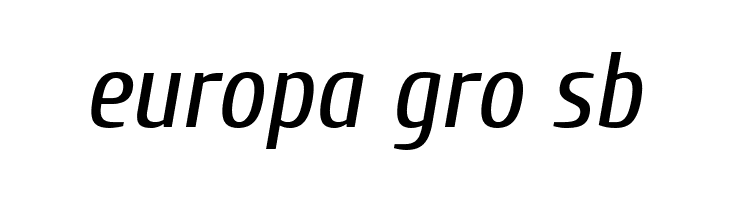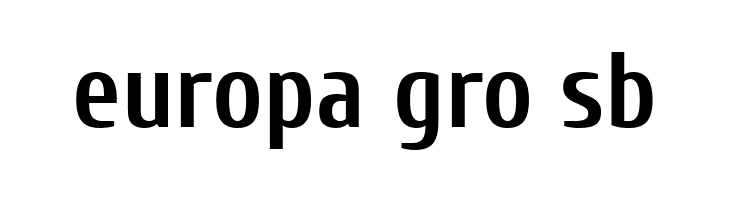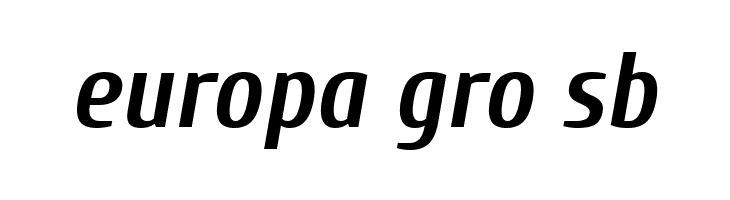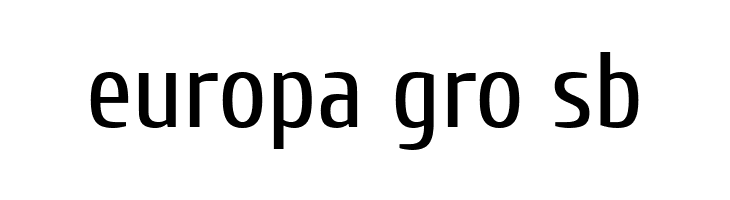
A bold, oblique font with a modern and dynamic style.
A modern, clean sans-serif font with uniform strokes and slightly condensed width.
A sleek, oblique font with a modern and dynamic style.
A bold, modern sans-serif font with clean lines and balanced spacing.